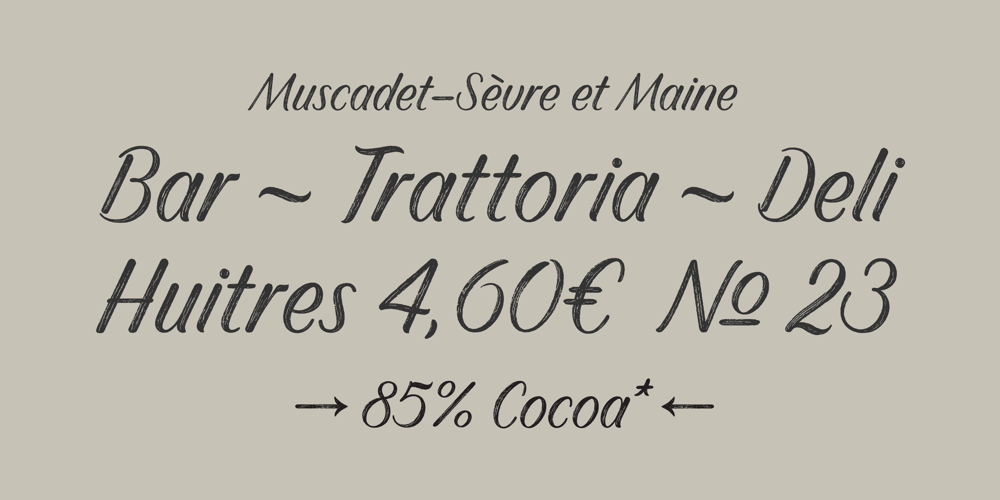
FS Shepton Font Family was designed by Andrew Lethbridge and published by Fontsmith. FS Shepton contains 3 styles and family package options. Handy AndyAndy Lethbridge had only just completed his graphic design BA at the University of Portsmouth when he was spotted by Jason, who’d seen Andy’s exquisite hand lettering at his degree show and on Instagram. Keen to push the handwritten theme further, having recently launched a digitally-created, chalky script font (FS Sammy), Jason offered Andy a job and the chance to develop a suite of more stylised, truly hand-drawn fonts. Andy duly got out his pads, pencils and pens, and started experimenting with styles and textures. Magic followed.Imperfection perfectedMost ‘handwritten’ typefaces are created entirely digitally. Not FS Shepton. From the start, the intention was to create a collection of alphabets of similar character but different texture and style – 100% hand-drawn and purposely imperfect, with the kind of inconsistent, organic shapes and textures of market stall signs, dashed off in chalk or paint.FS Shepton Regular, drawn with a wet brush pen, is solid with a rough outer edge and a casual but controlled feel. The dry brush used to create FS Shepton Light gives it more inner texture and a more formal, slanted, calligraphic style. FS Shepton Bold, drawn using a wider, looser dry brush pen, has a woody grain in the middle of its broad strokes and greater solidity where the brush moves more slowly.Fresh as a daisyThink of FS Shepton not as a family of three weights of the same font so much as a collection of three fonts penned by the same author. All of them – the light, regular and bold – were created independently as display fonts that offer something different to labelling, packaging, point-of-sale and advertising.Lovingly crafted by hand, they’re a good match for products and settings that share the same artisinal qualities: organic foods, drinks and healthcare products, as well as premium chocolate, coffee and condiments.